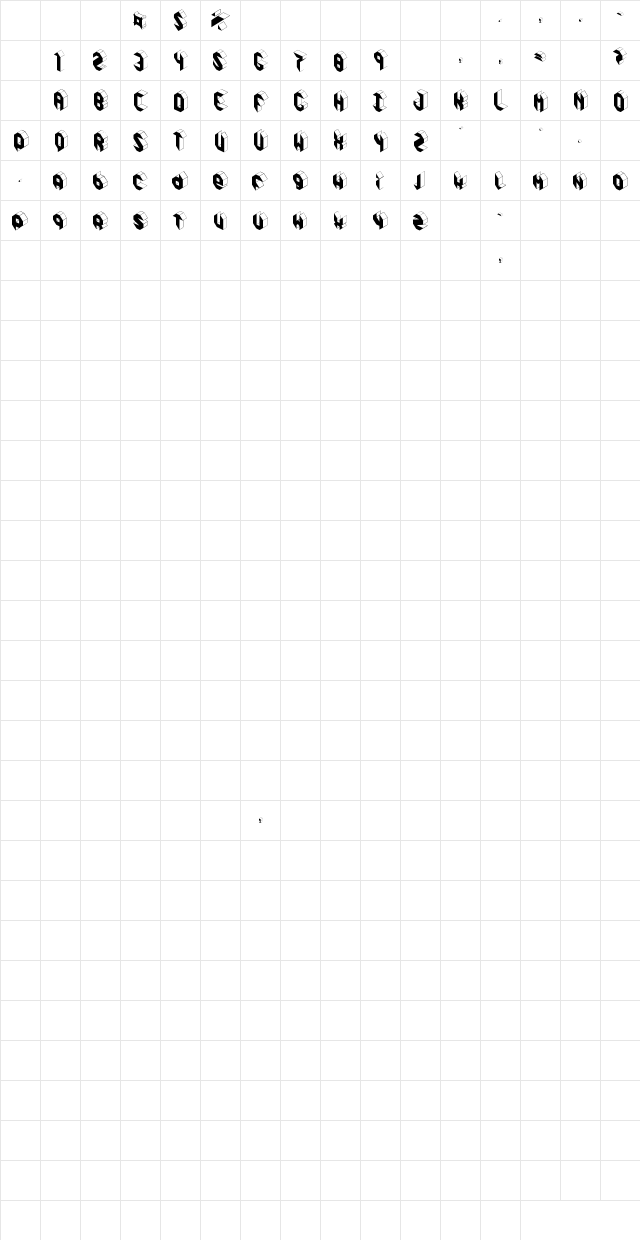
Pandimencional is a composed and adaptable typeface that performs quietly and consistently across a wide range of design contexts. Its bold stroke weight gives it real presence on the page.